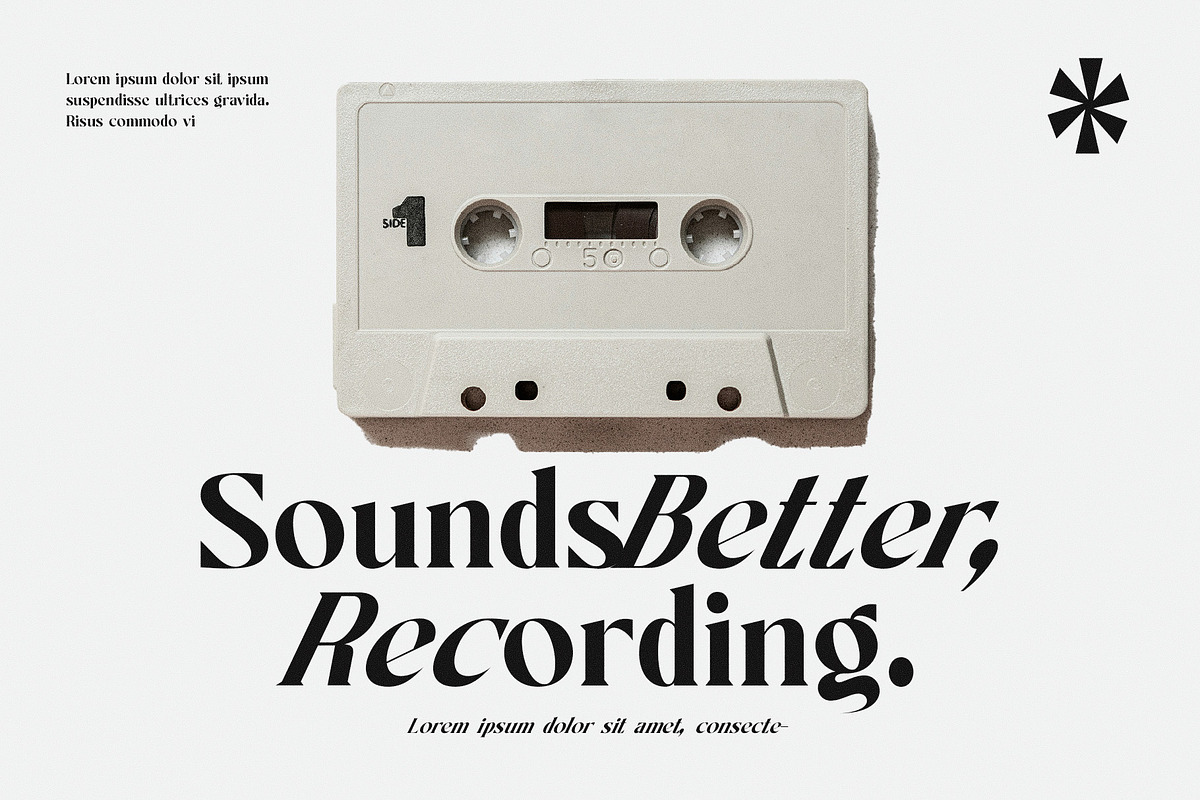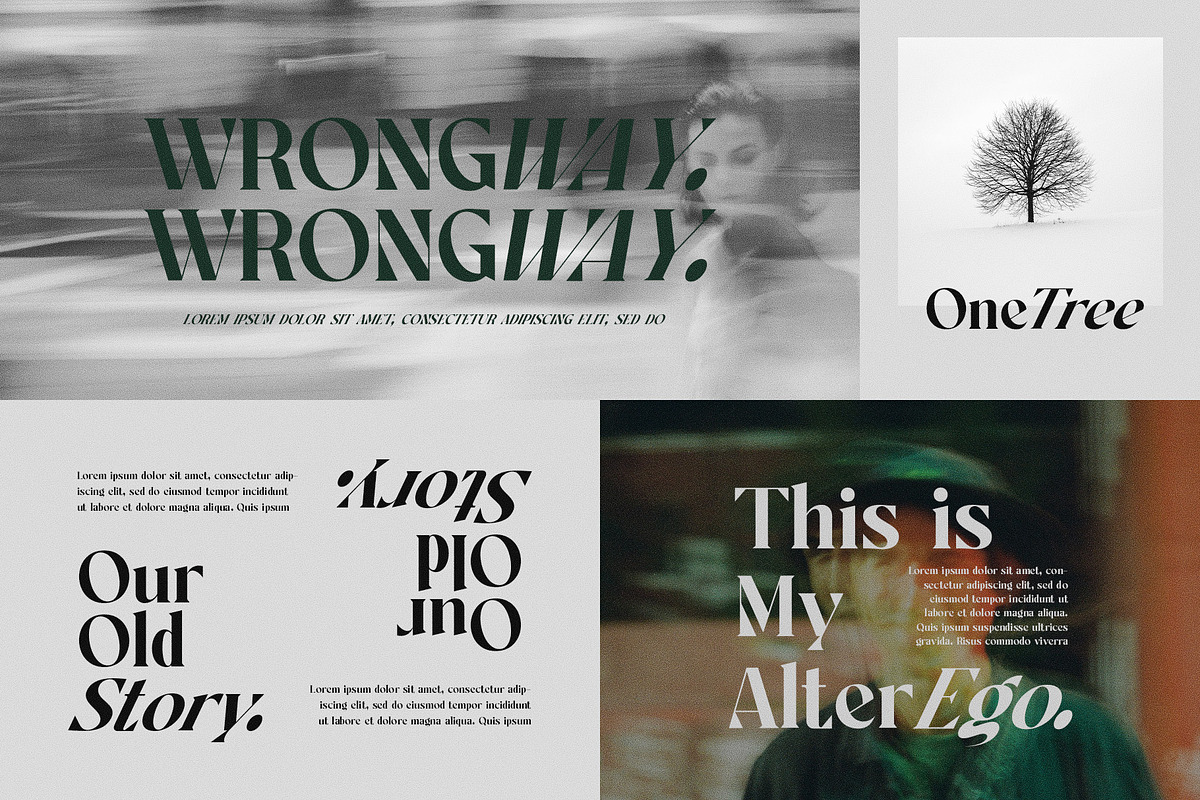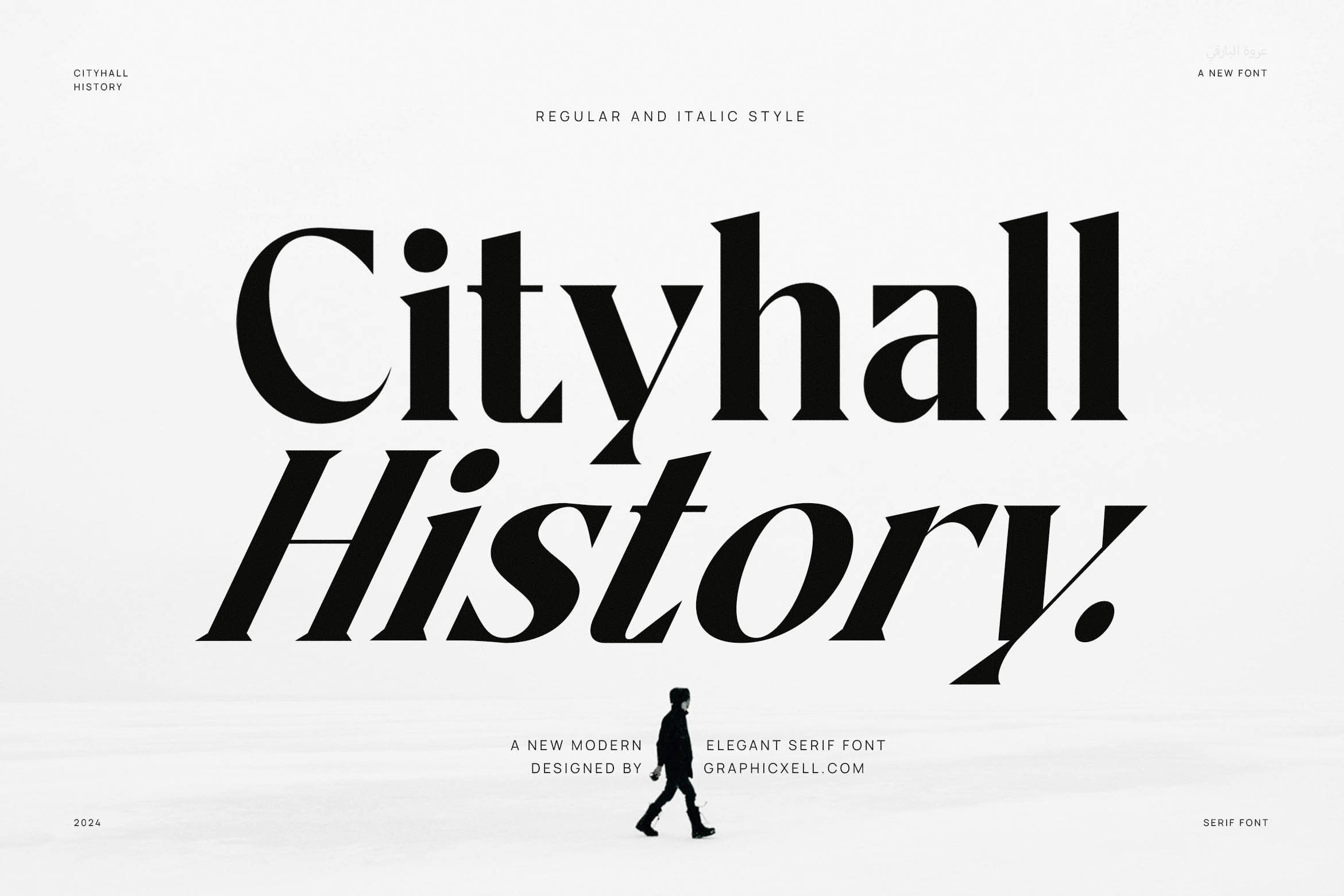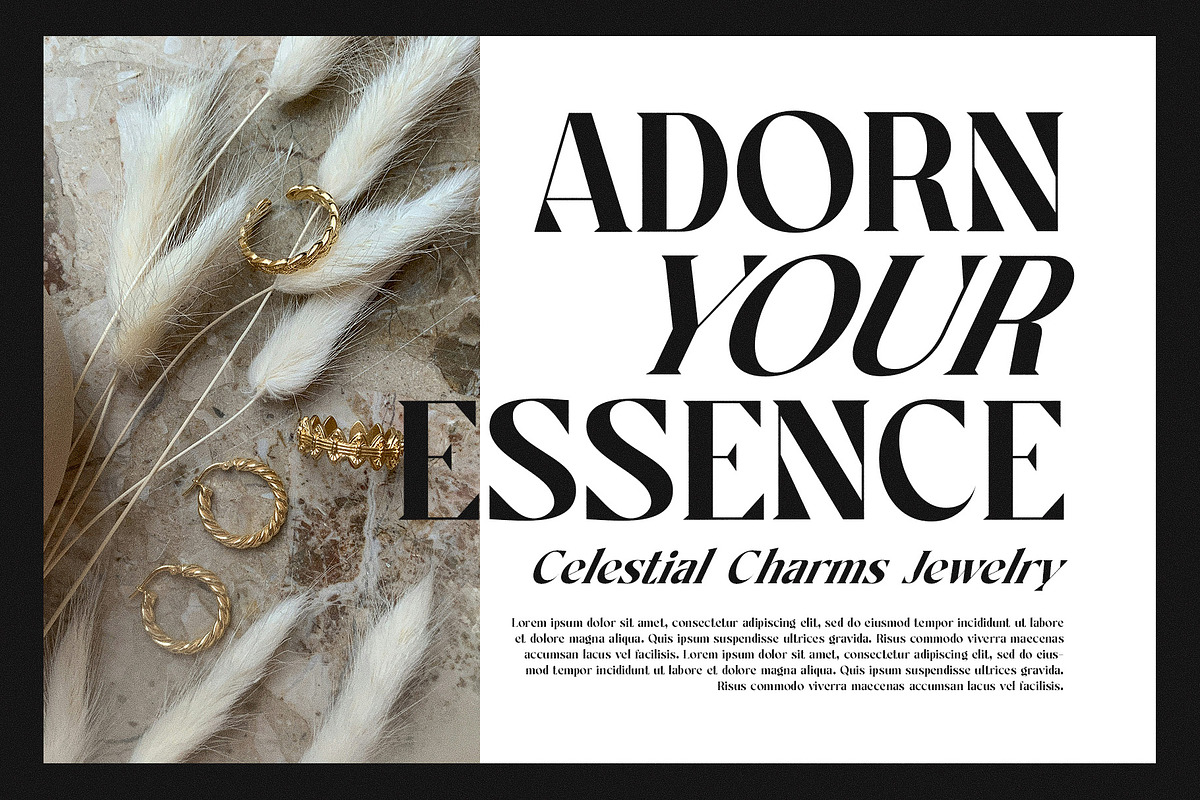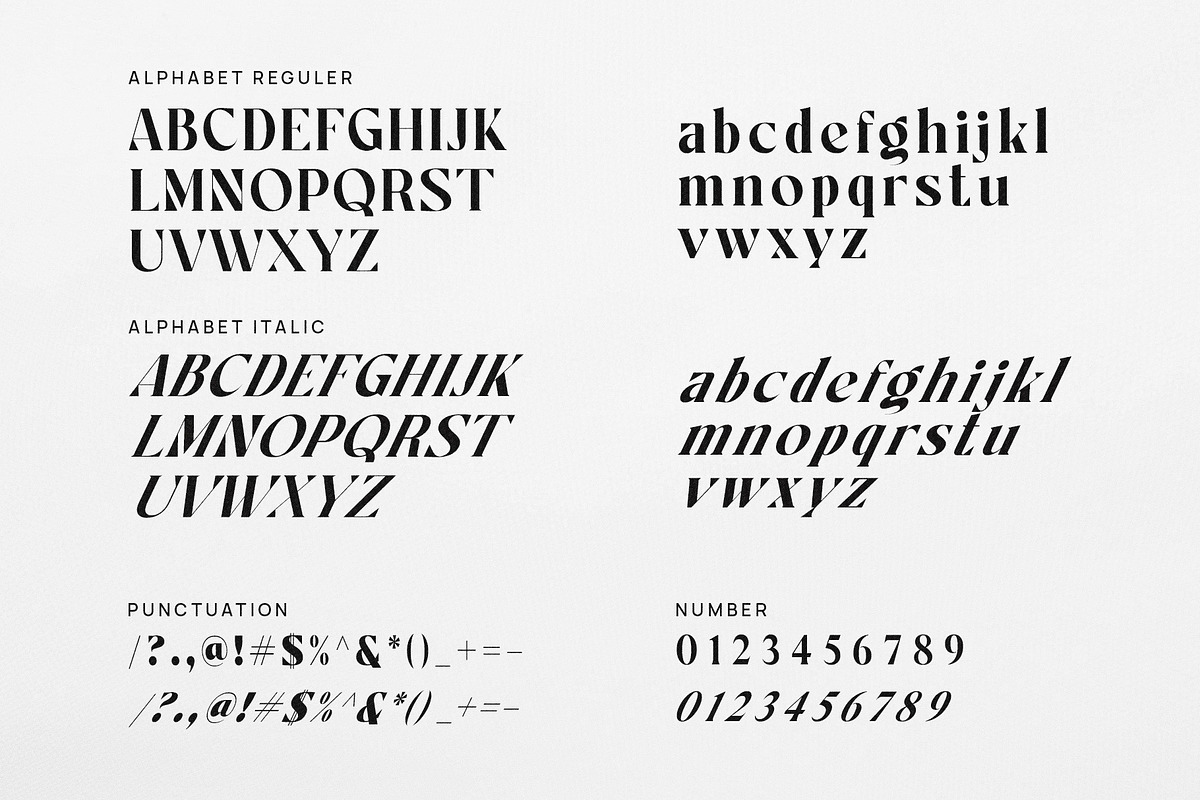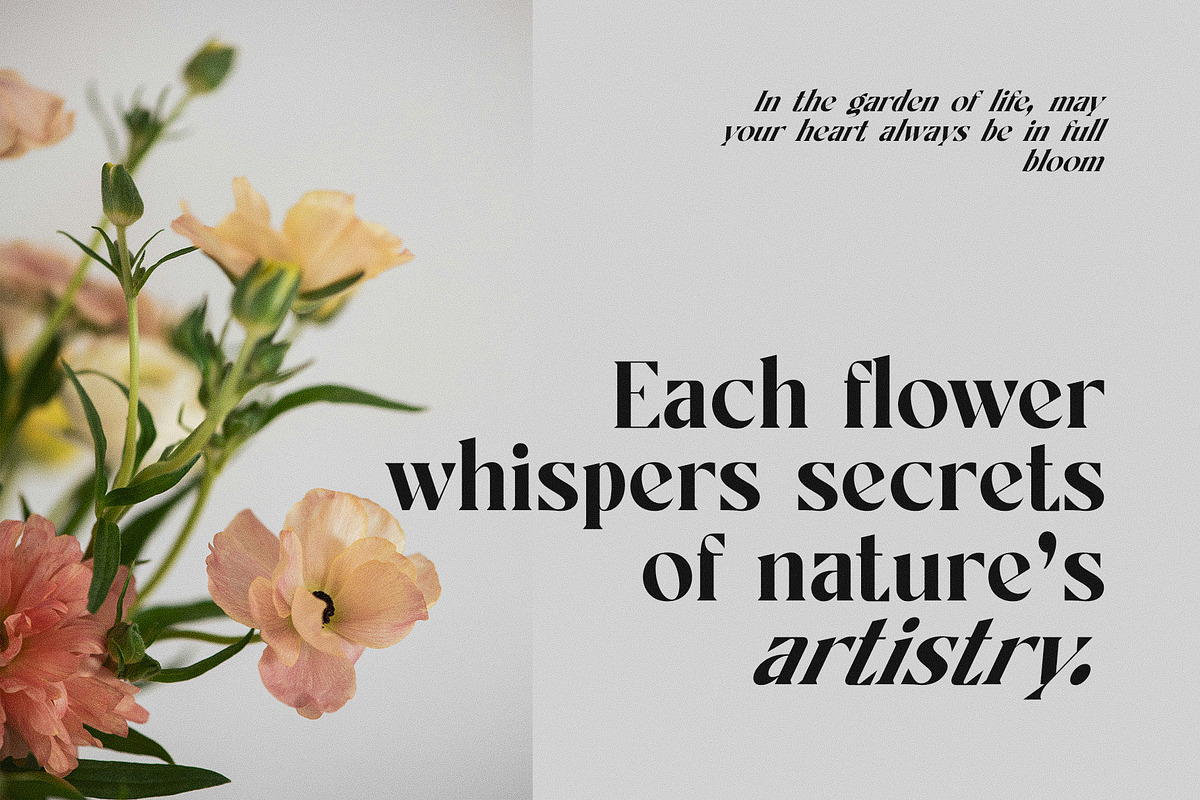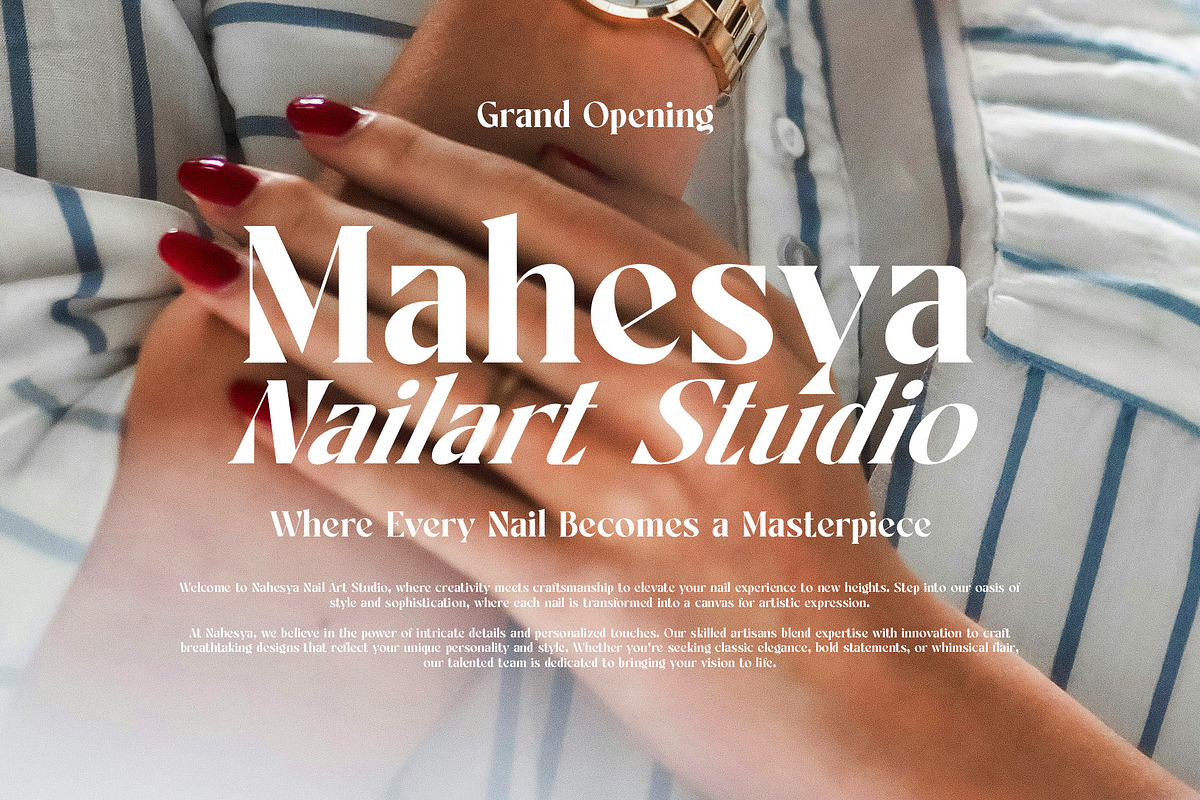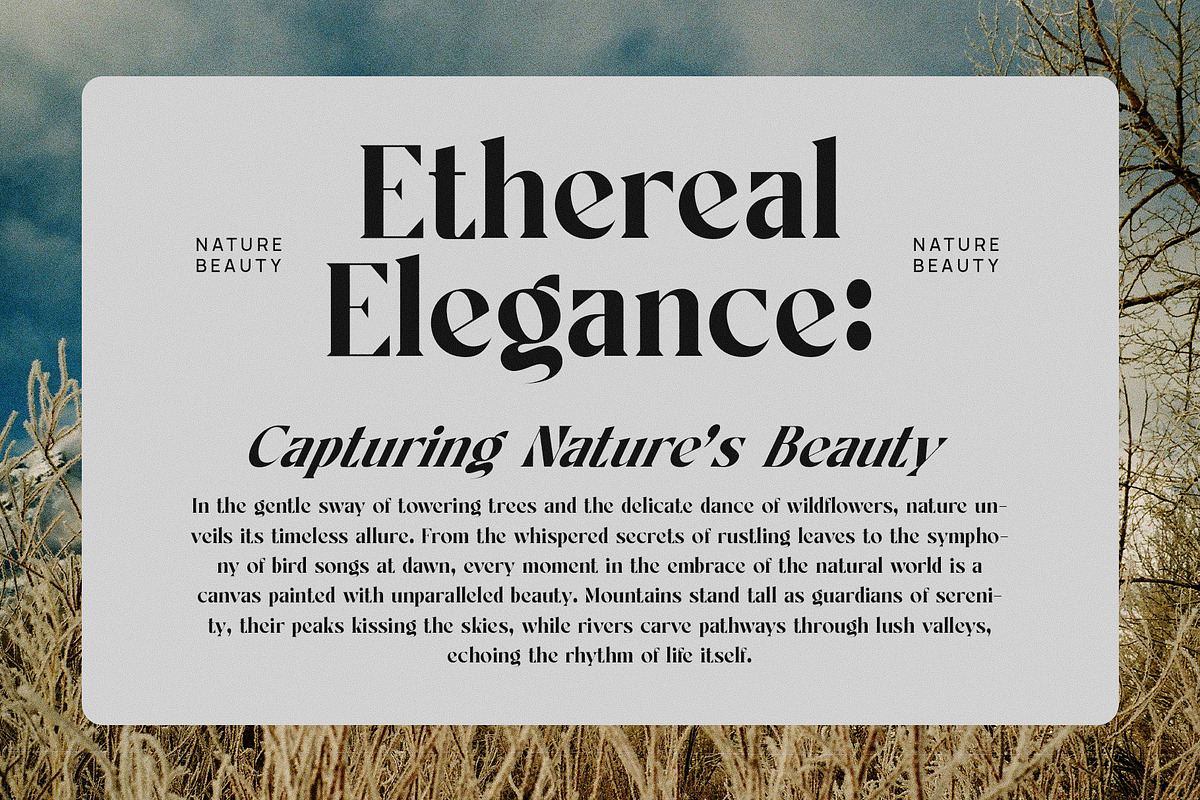
Cityhall History Family Serif Font
The font reminds us about the rich history and ancestry of the Italian type, and the Cityhall History font gets its inspiration from them. Look at this font; it reflects bravery through the detail and boldness displayed in it. Cityhall History is an elegant font serif that brings modern style to serif fonts. Like other modern serif fonts, Cityhall History has significant contrast among the thick and thin strokes, a very thin hair-line serif, and vertical pressure. By considering those characteristics, Cityhall History font is more expressive, so it can be used in almost every campaign. Do you know the particular uniqueness of Cityhall History? If you look carefully, you will notice a reversed diagonal axis style. That uniqueness definitely represents enthusiasm and looks stylish as well. Just wow! Indeed, Cityhall History font is correctly used for logos, billboard advertising font, fashion labels, posters and modern editorials. Use this font to get more engagement from crowd of people.